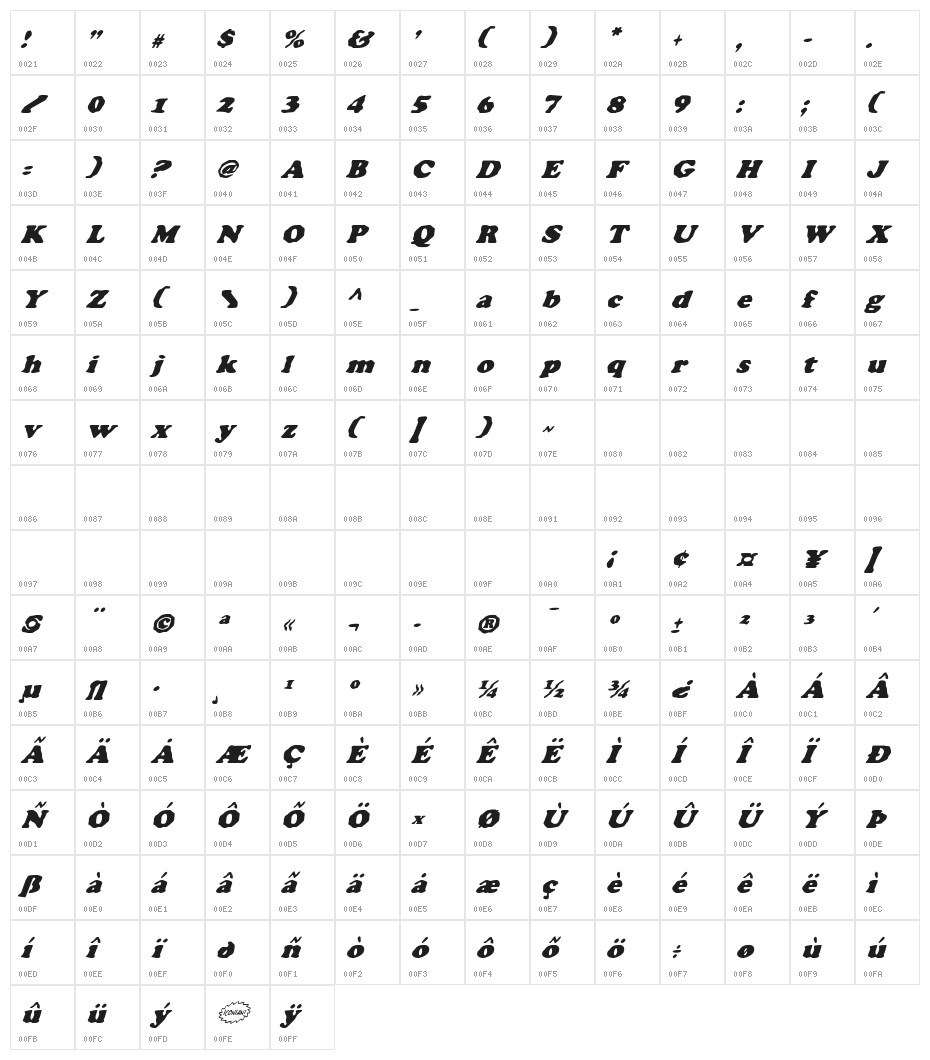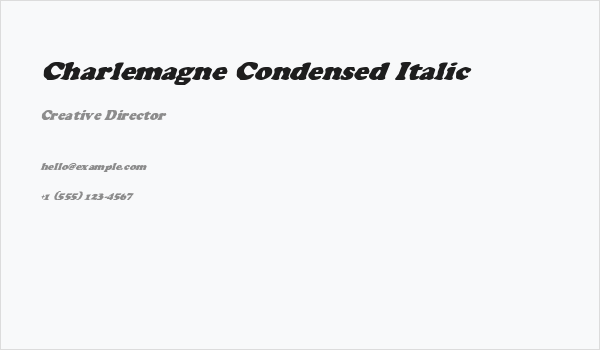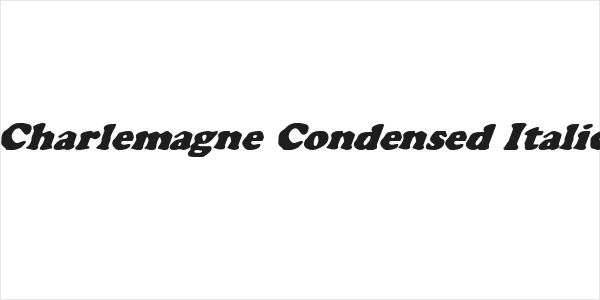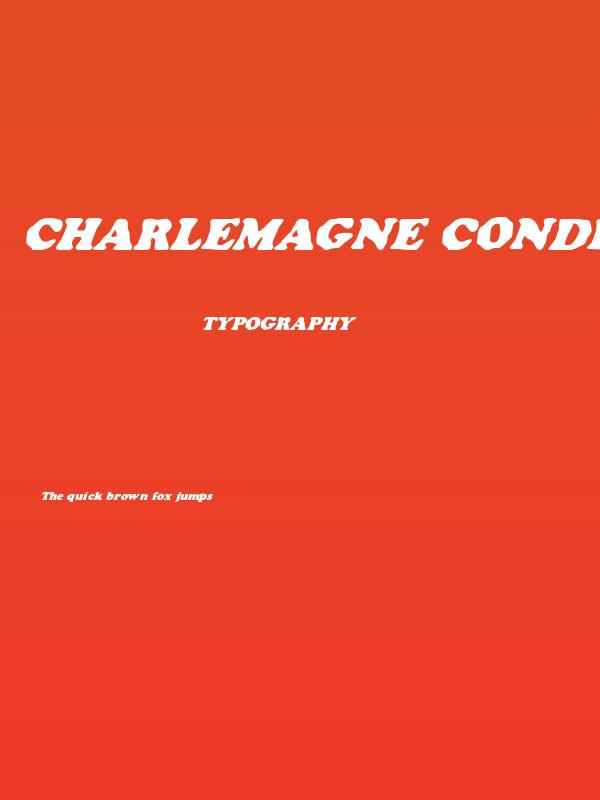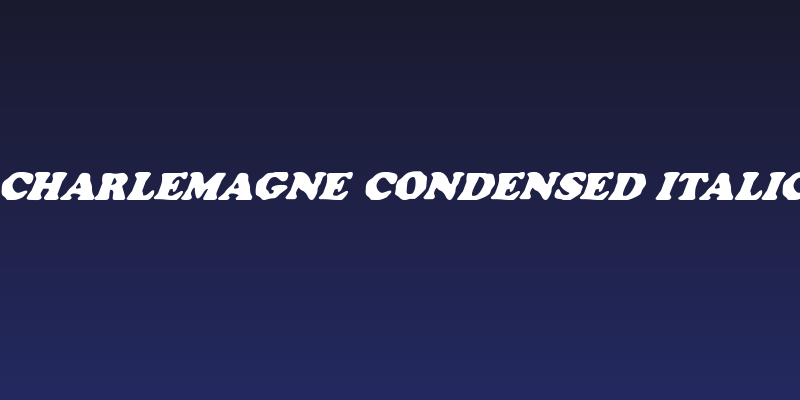
Charlemagne Condensed Italic Font
Charlemagne Condensed Italic Description
This font features a bold and dynamic style with a condensed and italicized form. The characters are robust and exhibit a strong presence, making them ideal for impactful designs. The uppercase letters are particularly striking, with a slight slant that adds a sense of motion and energy. The lowercase letters maintain the same boldness, ensuring consistency across text. Numbers and special characters are equally bold, providing a cohesive look throughout. The overall design is reminiscent of vintage styles, yet it maintains a modern appeal through its clean lines and structured form.
| Proposed Projects | Ideal for headlines, posters, branding, and any project requiring a strong visual impact. |